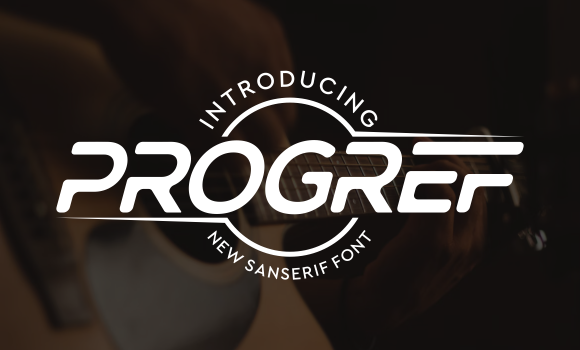
progref
Progref Font – Free Download Introduction to Progref Font Progref is a modern and unique display font that will take the boredom out of your life. 📸 Preview Gallery 2 images 📌 Product Name Progref Font 👤 Author brahamb78 📂